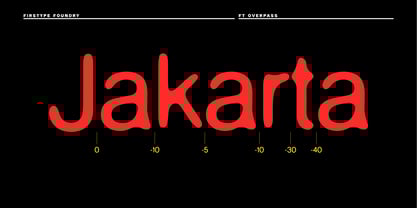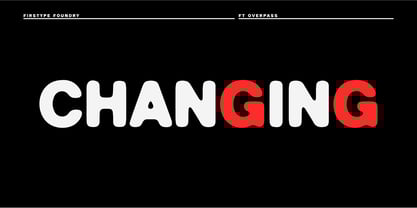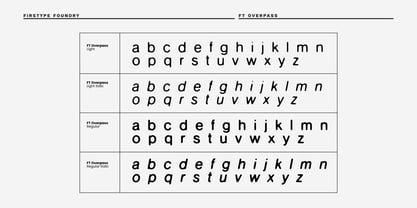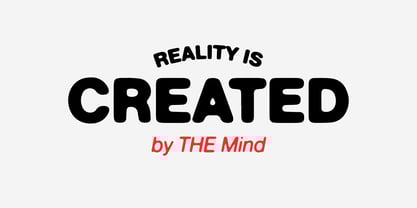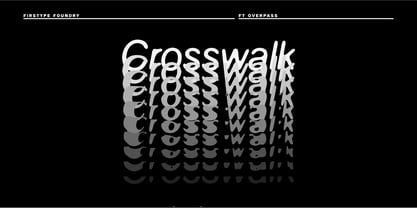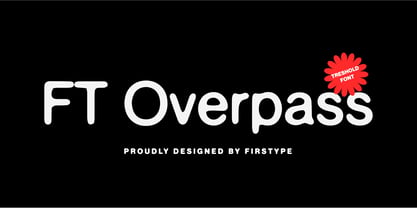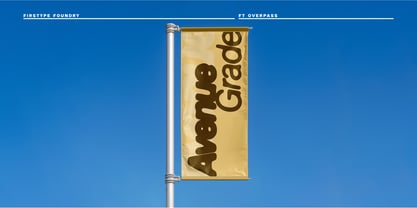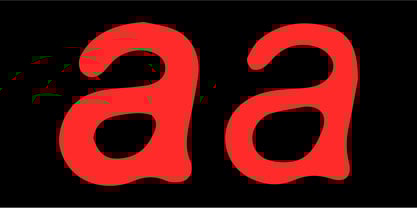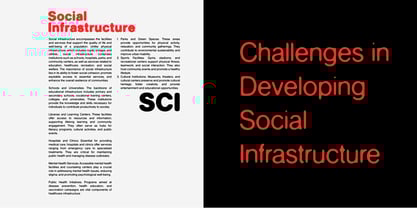
FT Overpass
by Firstype Studio
The FT Overpass Font Family was designed by Adrian Syauqi and published by Firstype Studio. FT Overpass contains 6 styles and family package options.
FT Overpass is a bold, rugged typeface that embodies raw, unpolished energy. Inspired by the industrial landscapes and worn textures of urban environments, FT Overpass brings an undeniable edge to any design. Its rough, threshold-style finish gives each letter a gritty, weathered appearance, as though it has been scraped and eroded over time, yet it retains a strong, structured form beneath the surface.
Every stroke in FT Overpass feels tactile, almost as if it’s been pulled directly from the walls of a forgotten, graffiti-streaked overpass or the rusted edges of a steel factory. The font’s distressed texture offers a unique balance—strong and bold enough to command attention, while its roughness lends an air of authenticity and rebellion.
FT Overpass is ideal for projects that demand an industrial, rough-hewn aesthetic. It thrives in poster design, album covers, streetwear branding, and anywhere you want to evoke a sense of raw power and urban grit. Whether you're designing for a hardcore metal band, a street art exhibit, or a bold advertising campaign, FT Overpass will leave a lasting, unforgettable impression.
This typeface is not just about style but the atmosphere it creates. FT Overpass transports the viewer into a world of concrete jungles, underground scenes, and unapologetic self-expression. Its threshold texture ensures it stands out in both digital and print media, making it the perfect choice for designers looking to make a bold, rebellious statement.
Designers: Adrian Syauqi
Publisher: Firstype Studio
Foundry: Firstype Studio
Design Owner: Firstype Studio